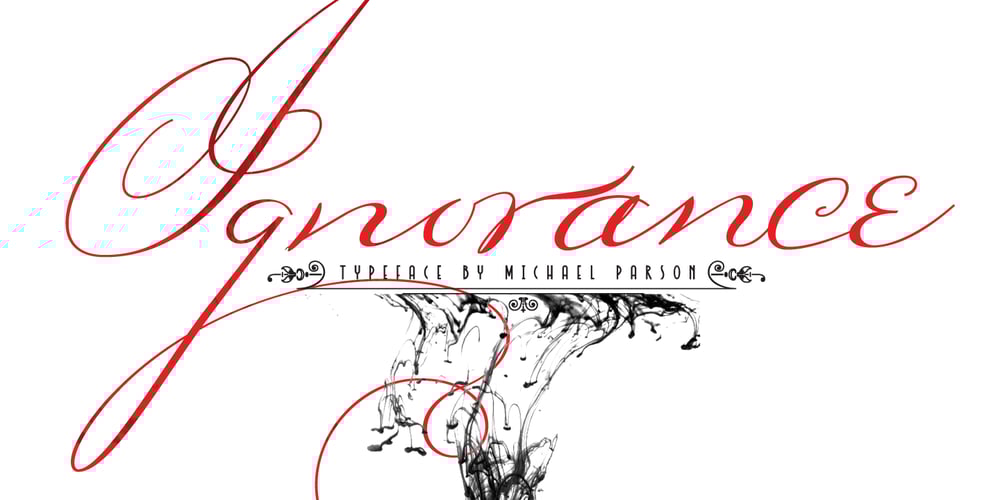
Ignorance
Ignorance font
Ignorance Font Family was designed by Michael Parson and published by Typogama. Ignorance contains 1 styles and family package options. Ignorance is a script typeface that mimics traditional handwriting found in America in the 19th century. Full of vitality and personality, this typeface includes a wide range of Opentype ligatures, alternates and swash characters that allow multiple choices for each setting. This design is principally aimed for use in display and titling setting that will reveal it’s finer details.